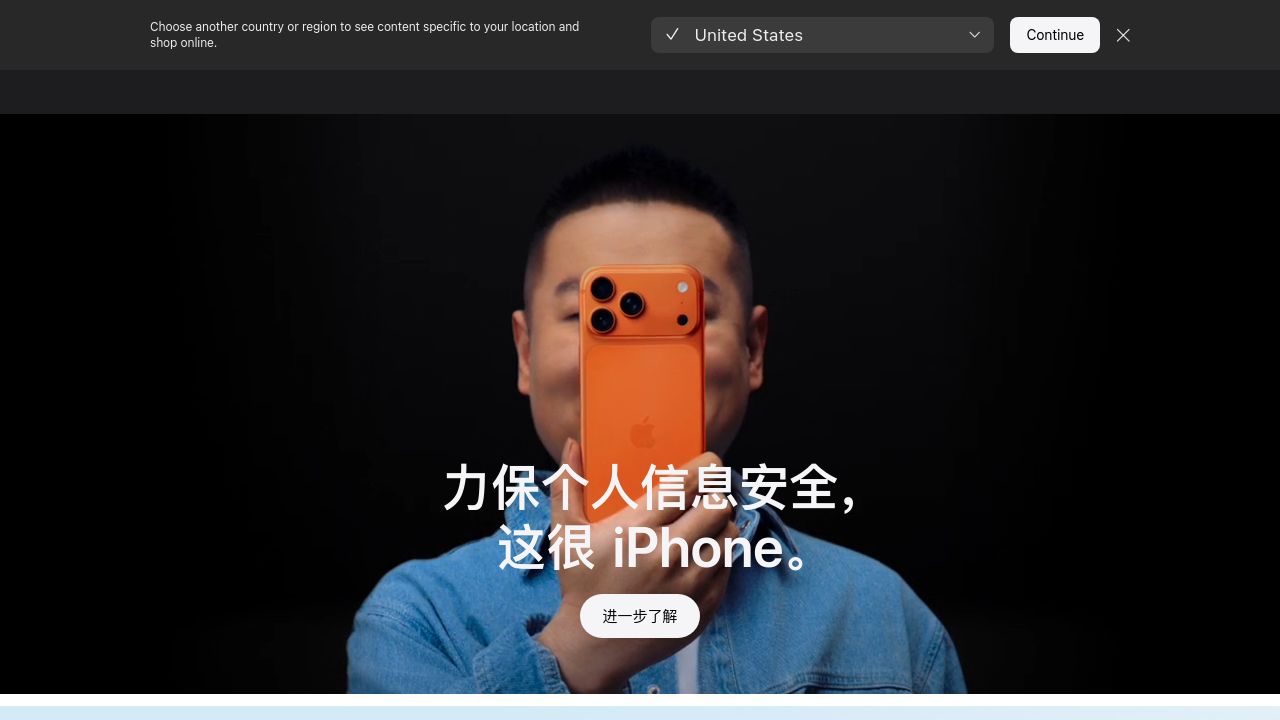
On apple.com.cn, the fonts SF Pro Display and SF Pro Text play a crucial role in conveying Apple's innovative identity. These system fonts, along with a variety of custom Apple Icons, enhance the user experience by ensuring clarity and accessibility. The choice of these fonts reflects Apple's commitment to functionality and sophistication, appealing to a diverse audience seeking cutting-edge technology and design.
The primary fonts used on apple.com.cn are SF Pro Display and SF Pro Text, along with various custom Apple Icons. These fonts ensure a cohesive visual experience.
Apple Icons offer a unique design tailored for the Apple ecosystem, providing a distinct look compared to standard icons. They ensure brand consistency across platforms.
SF Pro Display and SF Pro Text are primarily available in weight 400. Other Apple Icons come in various weights, from 100 to 900, allowing for diverse design applications.
In case the primary fonts are unavailable, apple.com.cn uses fallback fonts such as Arial, Helvetica, and Helvetica Neue to maintain readability and style.